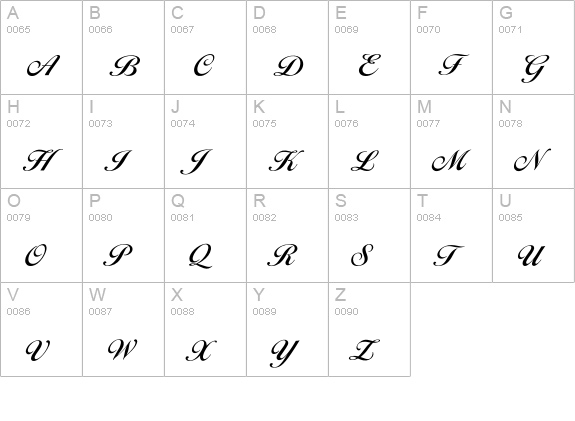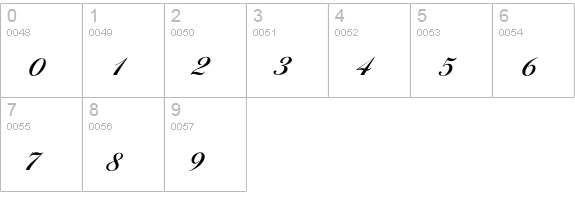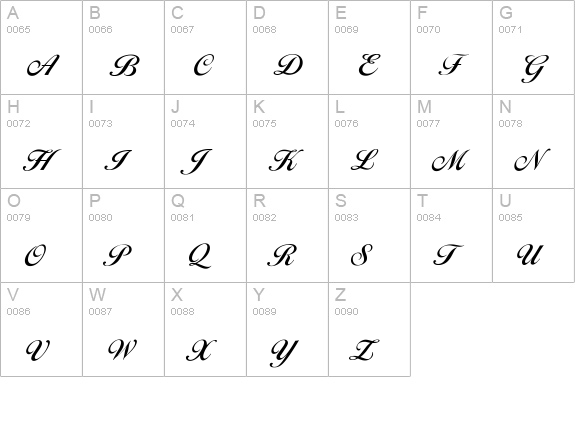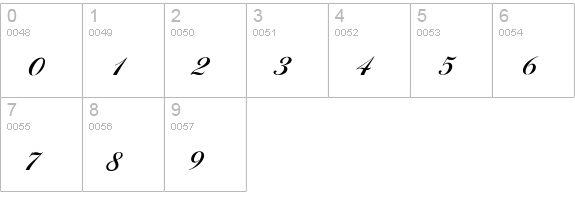
Iballantines-DemiBold Font Details
Iballantines-DemiBold is a sub-bold, structured variant in the Iballantines typeface family \xE2\x80\x94 well suited to sub-headlines and emphasised passages.
Introducing Iballantines-DemiBold, a striking font that effortlessly combines elegance and boldness. This font is the perfect choice for those seeking a balance between sophistication and modernity in their designs. With its clean lines and strong presence, Iballantines-DemiBold commands attention and makes a statement. What sets this font apart is not only its captivating design, but also its accessibility. Iballantines-DemiBold is freely available to download at FontsMarket.com, making it an irresistible choice for designers and creatives alike. Whether you're working on a branding project, a website design, or a print advertisement, this font is sure to elevate your work to new heights. The attention to detail in Iballantines-DemiBold is apparent in every character. From its meticulously crafted uppercase letters to its gracefully flowing lowercase characters, this font exudes quality and professionalism. Its versatility allows it to be used in a wide range of design projects, from elegant invitations and formal documents to eye-catching headlines and attention-grabbing signage. The beauty of Iballantines-DemiBold lies not only in its visual appeal but also in its ease of use. Its well-balanced letterforms ensure legibility at various sizes and across different mediums, ensuring that your message is communicated effectively. Whether it's a bold title or a subtle caption, this font brings clarity and impact to your words. Incorporating Iballantines-DemiBold into your designs is effortless. Its compatibility with various design software and operating systems allows for seamless integration, making it a reliable and versatile choice for any project. With its wide range of characters and language support, this font caters to a global audience, ensuring that your message is understood and appreciated by all. So, if you're looking for a font that combines elegance, boldness, and accessibility, look no further than Iballantines-DemiBold. Download it for free at FontsMarket.com and unlock a world of possibilities for your designs. Elevate your creativity and make a lasting impression with this exceptional font.